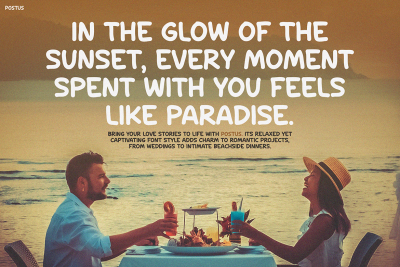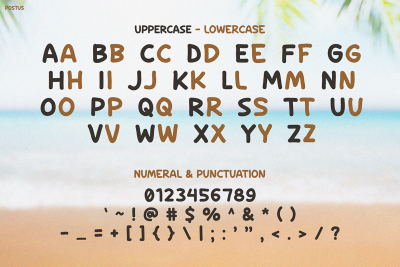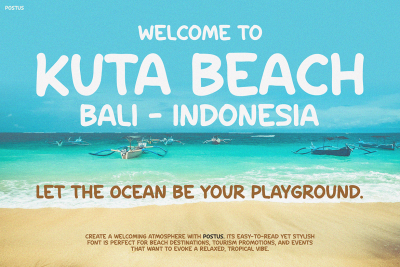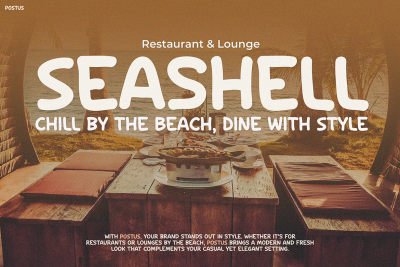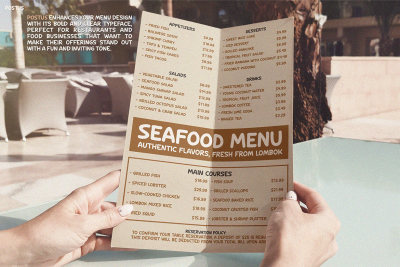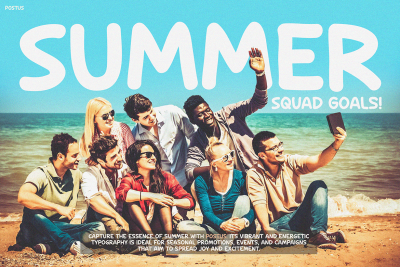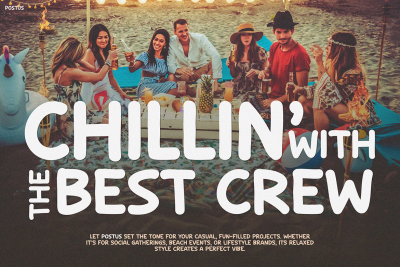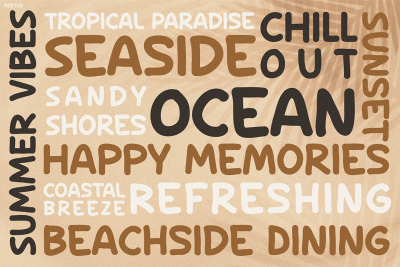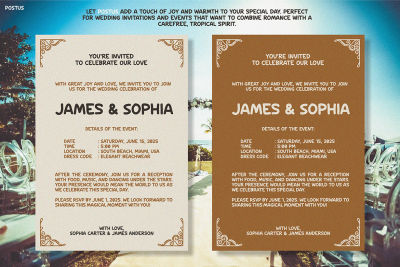
Instagram Font POSTUS
POSTUS
Instagram Font POSTUS: A Bold Expression of Summer Fun and Friendly Vibes
Looking for the perfect blend of bold charm and playful energy? Instagram Font POSTUS is your answer. This unique typeface captures the very essence of joy, sunshine, and relaxation. With its rounded, hand-lettered aesthetic, POSTUS stands out thanks to a welcoming and vibrant personality that instantly evokes the warmth of beach trips, hangouts with friends, and tropical escapes. Each letterform feels casual yet confident—playful but never messy—making it ideal for creators who want to infuse a breezy, youthful tone into their work. As a result, it becomes a go-to choice for projects that aim to feel both energetic and approachable. Whether you’re designing a summer campaign, a beach destination promo, or even a cozy café menu, POSTUS effortlessly pulls viewers in with its friendly attitude and clear readability.
Instagram Font POSTUS Perfect For Creatives, Brands, and Businesses That Want to Shine
Not only is POSTUS visually appealing, but it’s also incredibly versatile. In fact, it works beautifully for a wide range of projects:
• Travel Agencies & Beach Resorts: Want to evoke the magic of tropical holidays? Just take a look at the “Welcome to Kuta Beach” sample. POSTUS delivers that laid-back vibe tourists love.
• Cafés, Food Trucks, and Menus: Furthermore, the “Seafood Menu” design shows how POSTUS brings a clean yet playful aesthetic, perfect for drawing attention while keeping things readable.
• Social Media Creators & Influencers: Additionally, the “SUMMER Squad Goals” sample proves that this font was made for Instagram. Add it to your stories, reels, or travel content—and watch the engagement rise.
• Event Organizers: If you’re promoting summer events, beach parties, or festivals, POSTUS is a fantastic choice. It instantly sparks excitement and positivity at first glance.
In short, whether you’re creating for digital platforms or printed materials, POSTUS helps you craft a friendly, relatable brand voice that stands out.
Ready to Capture the Vibe?
So, if your next creative project needs a touch of summer fun and friendly energy, Instagram Font POSTUS is the answer. It doesn’t just decorate your words—rather, it amplifies your message. Bright, bold, and beach-ready, this font transforms any ordinary design into an inviting visual story. Therefore, don’t just design—make your message feel like a warm breeze. Try POSTUS today and bring your ideas to life with a font that speaks the language of joy and sunshine.
POSTUS is a bold and playful Instagram font that brings summer vibes to your designs—perfect for social media, menus, and tropical branding.